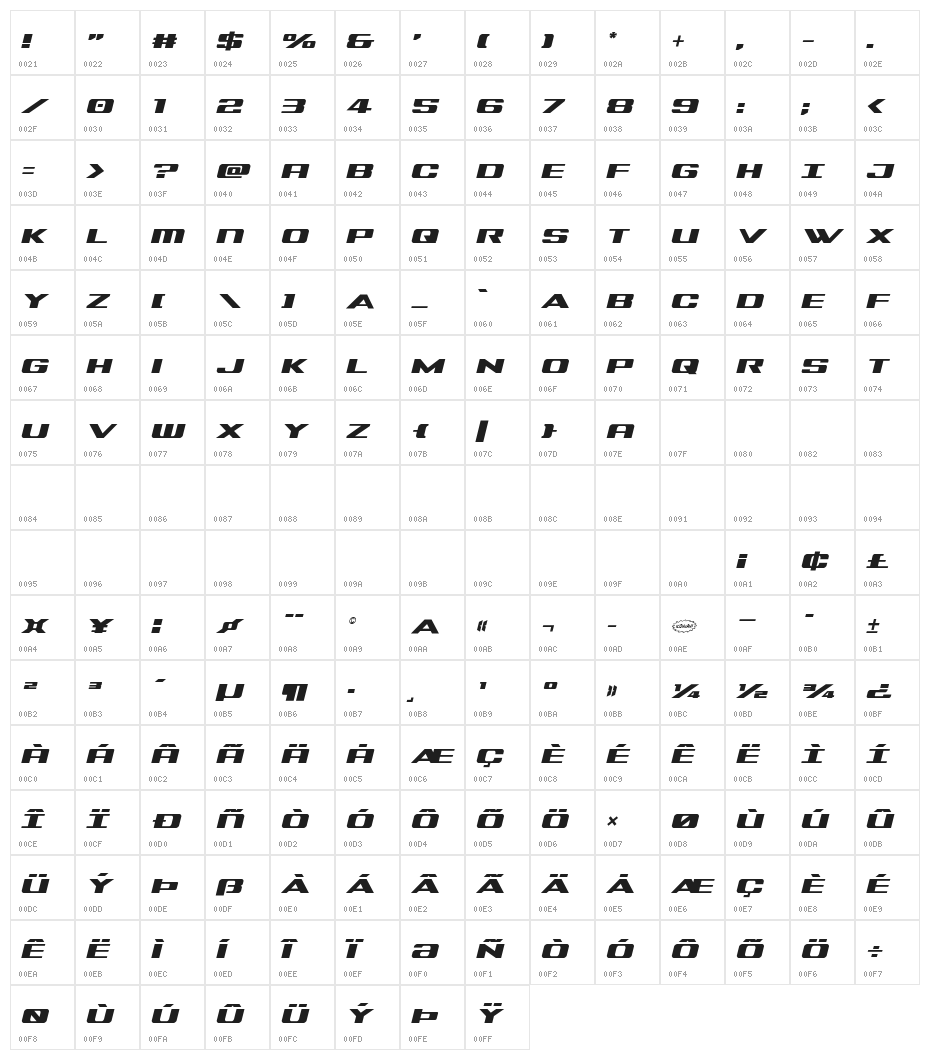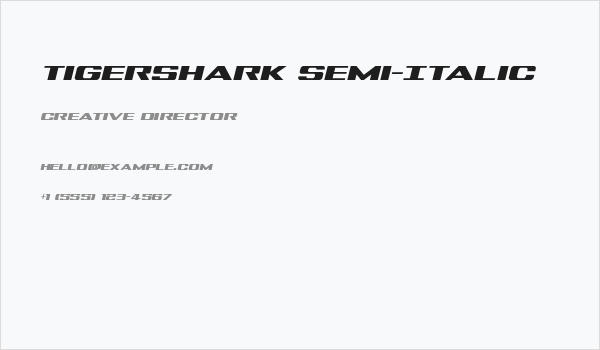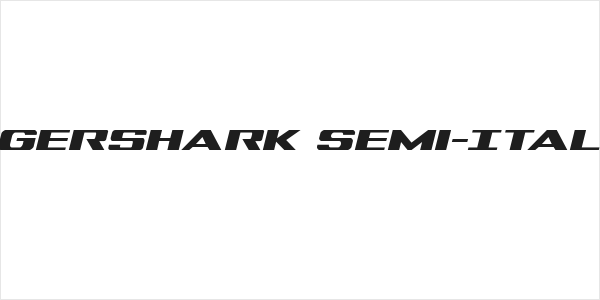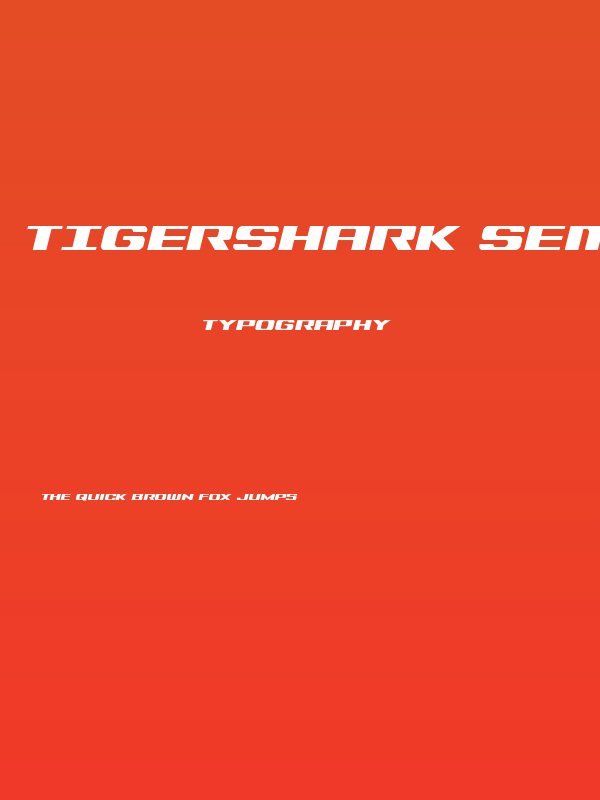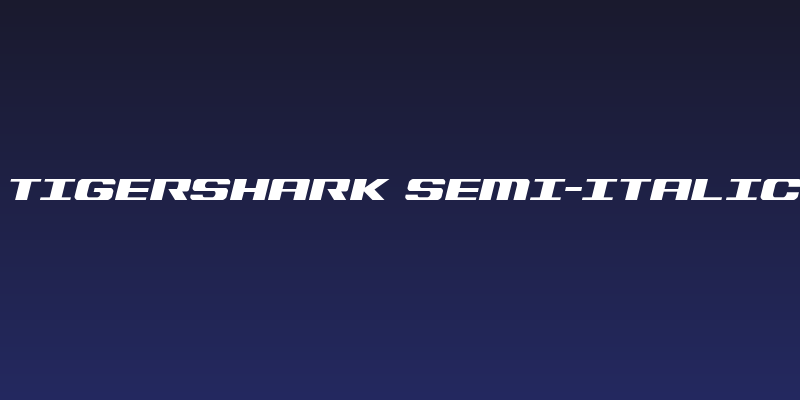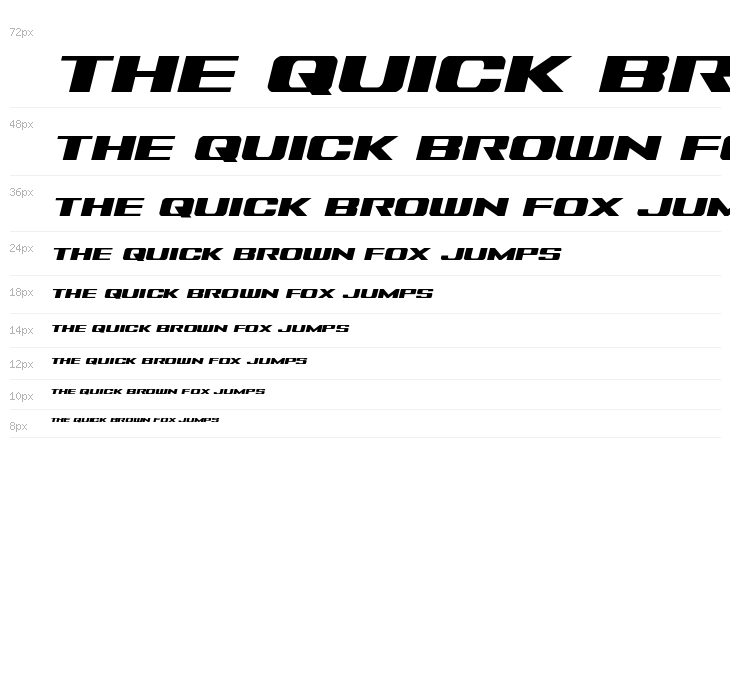
Tigershark Semi-Italic Font
Tigershark Semi-Italic Description
This font features a bold and dynamic style with a semi-italic slant, giving it a sense of motion and energy. The characters are robust with a strong presence, making them ideal for impactful designs. The uppercase and lowercase letters maintain a consistent weight, providing uniformity across the text. The numerals are equally bold, ensuring readability and emphasis. Special characters are designed to match the overall aesthetic, contributing to a cohesive look. The font's modern and sporty appearance makes it suitable for projects that require a bold statement.